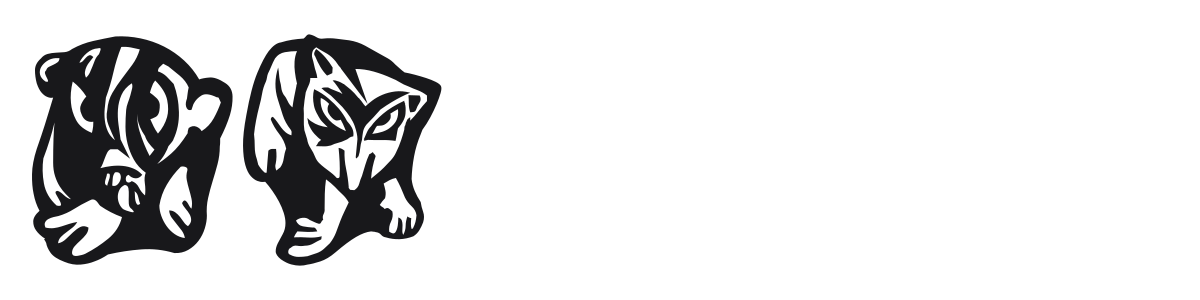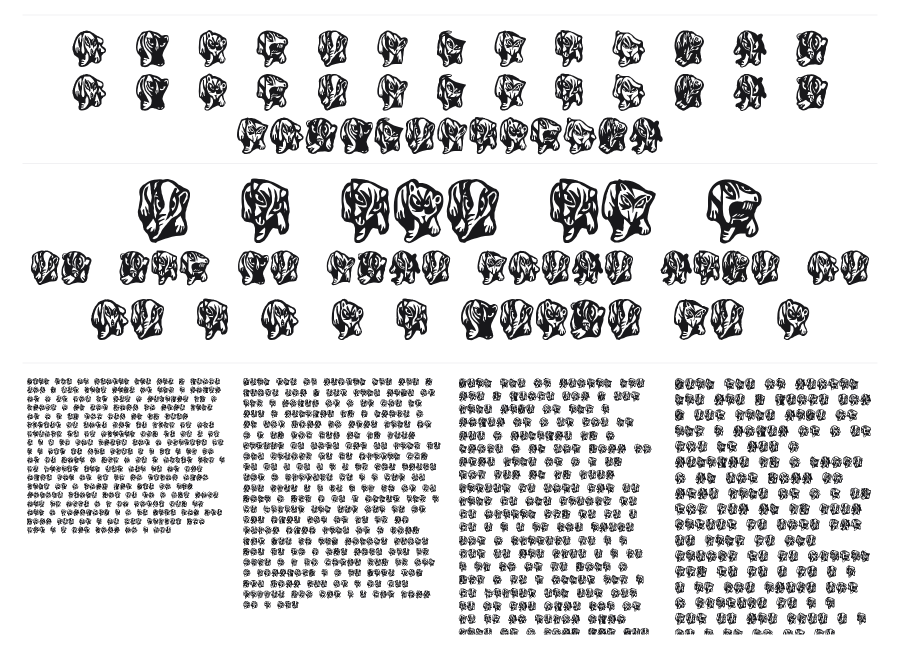
Mythos
Mythos is a dingbat font by Vladimir Nikolic featuring bold, woodcut-style animal head illustrations. Each character is a different creature rendered in stark black and white with the raw, expressive energy of linocut printmaking. Great for decorative use in gaming, publishing, or any project that calls for wild, illustrated iconography.